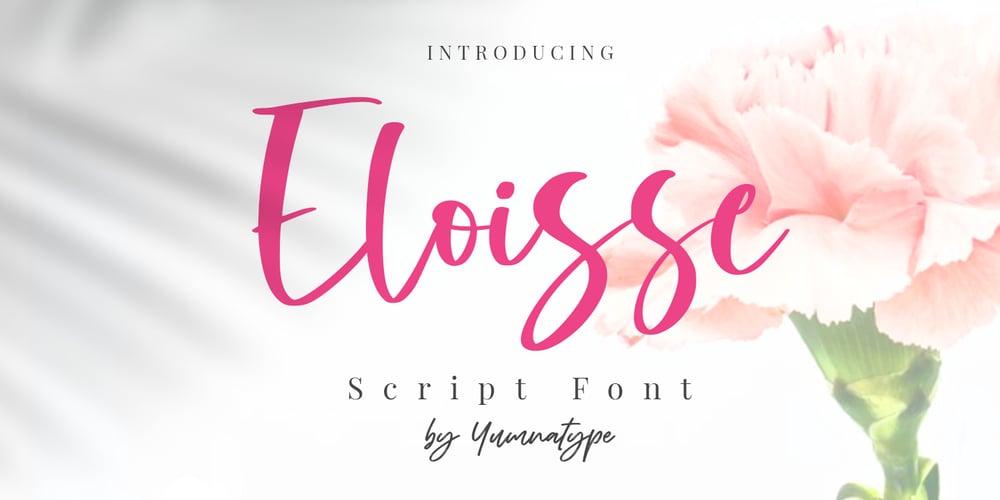
Eloisse
Eloisse font
Eloisse Font Family was designed by Donis Miftahudin and published by Yumna Type. Eloisse contains 1 styles and family package options. Eloisse is a beautiful handwritten font. Made for any professional project branding. It is the best for logos, branding and quotes. Every letter has a unique and beautiful touch.Includes:Eloisse (OTF)Features: Standard Ligatures PUA Encoded Multilingual Support Numerals and Punctuation by Yumnatype